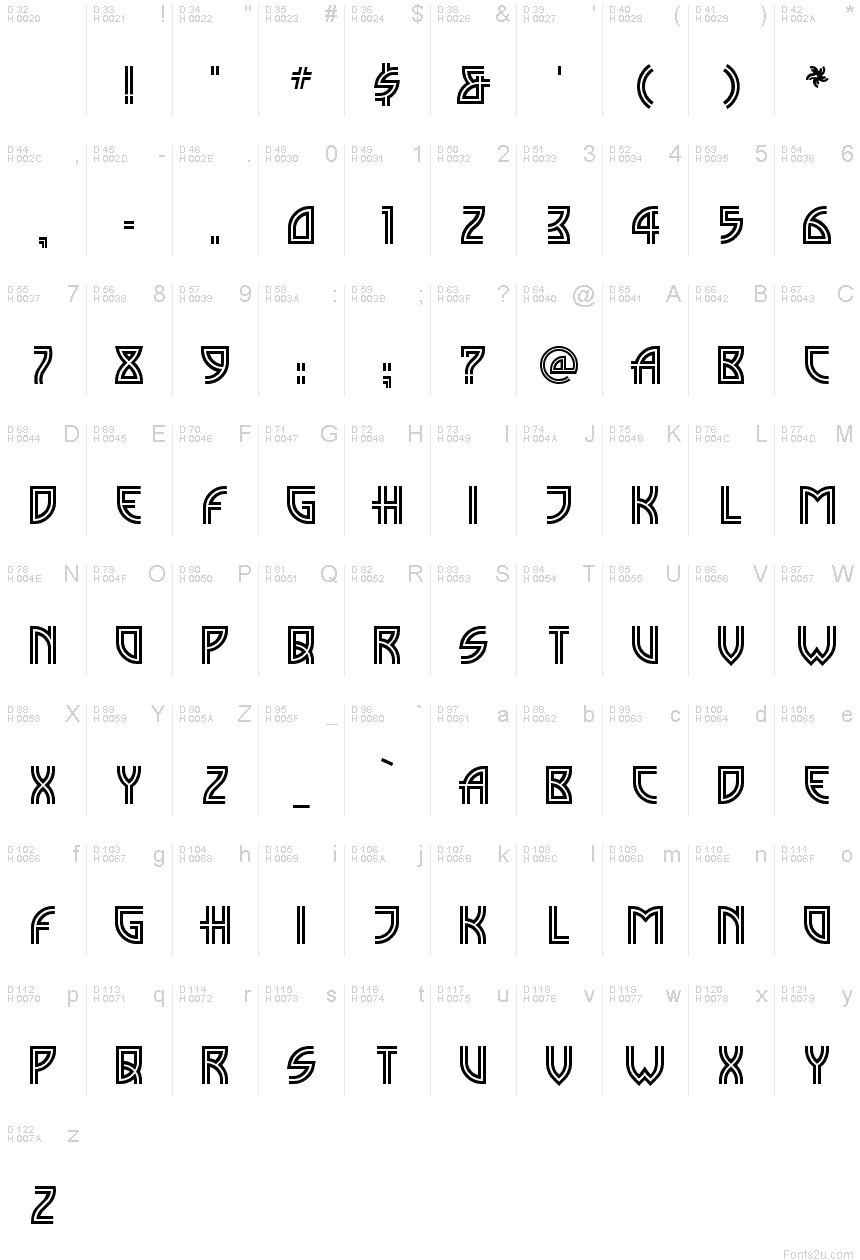
Madison Square Incised by Nick Curtis is a free groovy display font with a double-line outline and sharp inner cuts that give each letter a carved, poster-like shape. The squared curves and open centers make the whole design feel more graphic than decorative, with a clear 1970s-inspired rhythm.
Madison Square Incised works well for album covers, event posters, retro branding, headlines, and packaging that needs a strong display voice without heavy detail. This free font also fits logo sketches and short editorial titles where its outlined forms can hold attention and stay readable at larger sizes.